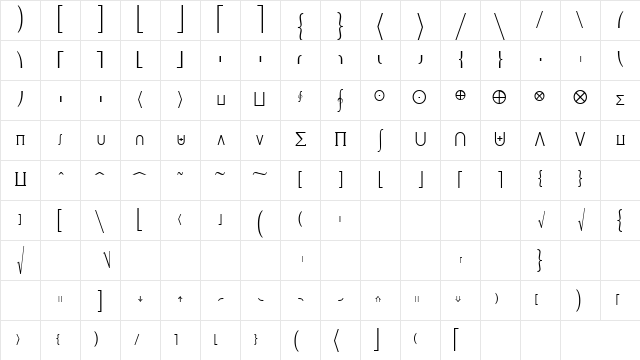
MachadoMathExtensionSSK Regular
Design Context for MachadoMathExtensionSSK
MachadoMathExtensionSSK is a composed and adaptable typeface that performs quietly and consistently across a wide range of design contexts.